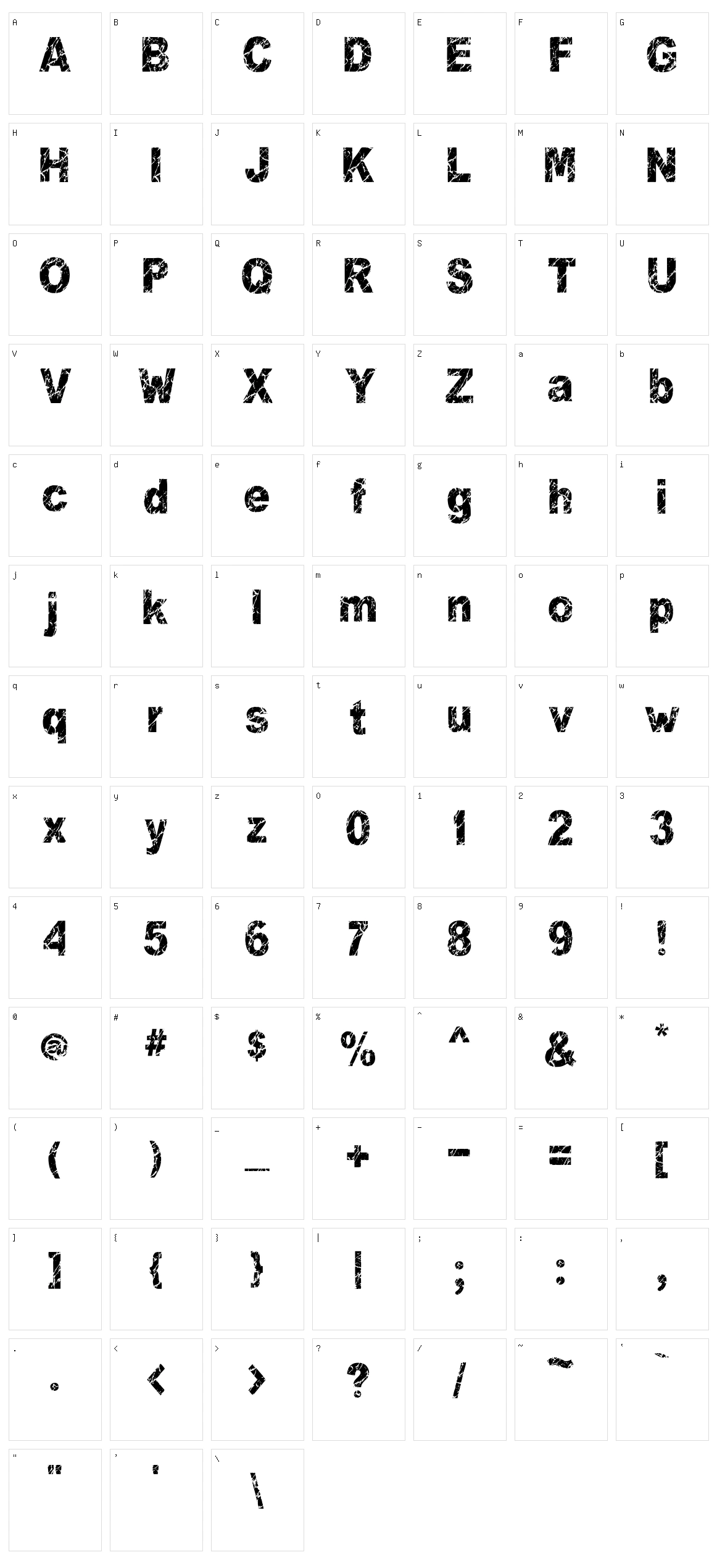
"You Rook Marbelous" is the 43rd free font from Rich Gast.
The character set includes:
Upper and lower case letters, numbers and the vast majority of
international characters and punctuation.
SPECIAL CHARACTERS:
[alt0164] is the Eurocurrency symbol.
[alt0166] is "Th"
[alt0175] is a narrow space you can use to add additional spacing
between characters, should you desire.
Fans of Billy Crystal will recognize the name as stemming from Billy's
Saturday Night Live impersonation of Ricardo Montalban. Since the font
features marble grained characters, it looks simply "marbelous"! And
marble was a lot easier to create than rich, Corinthian leather.